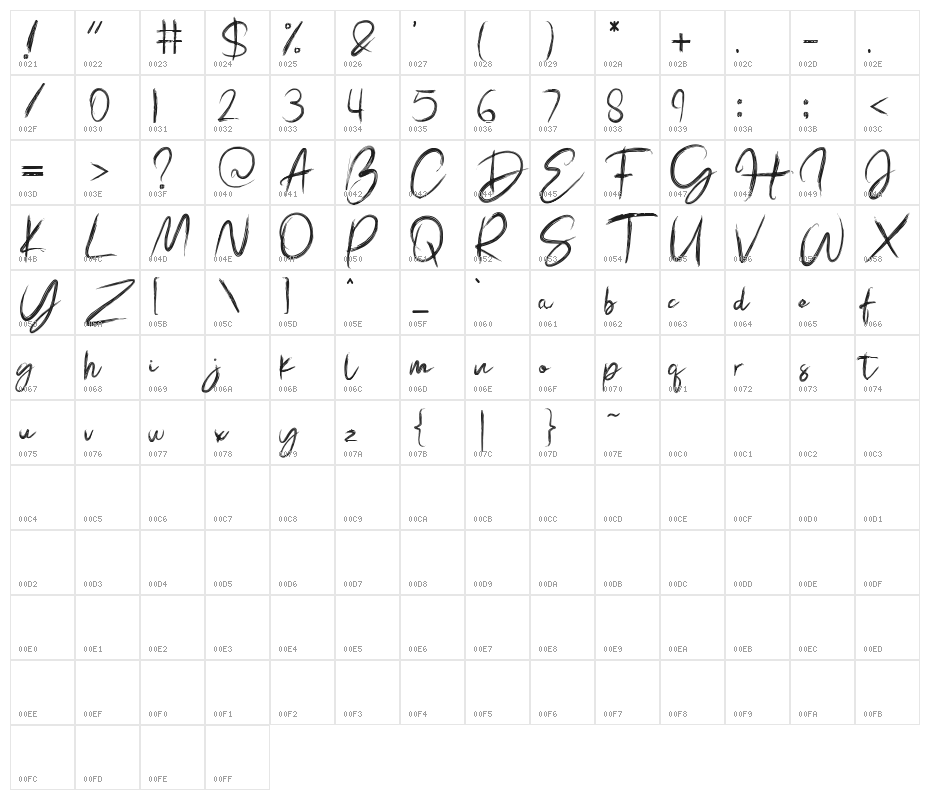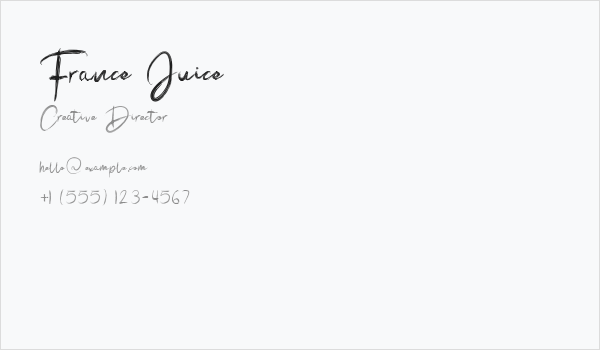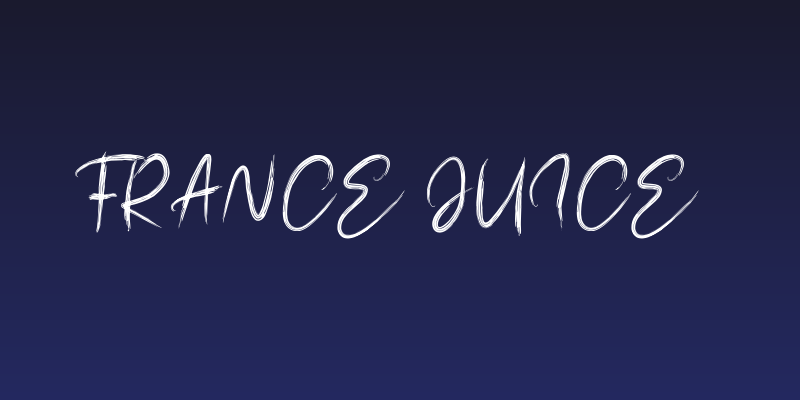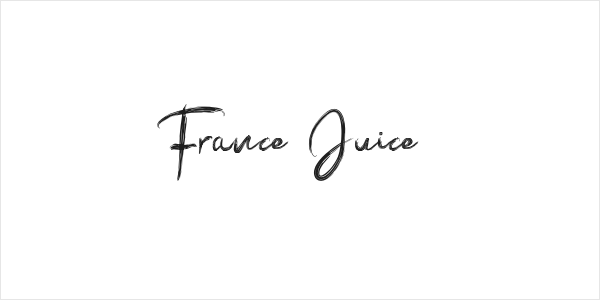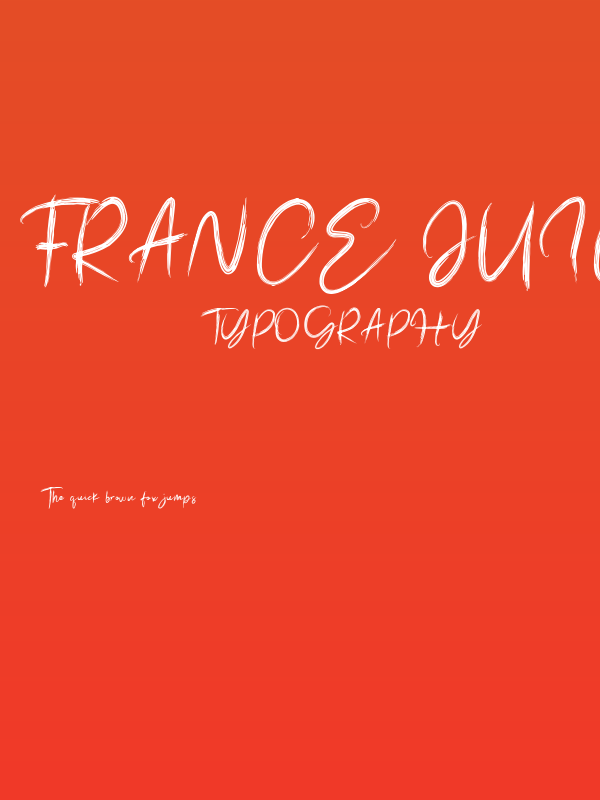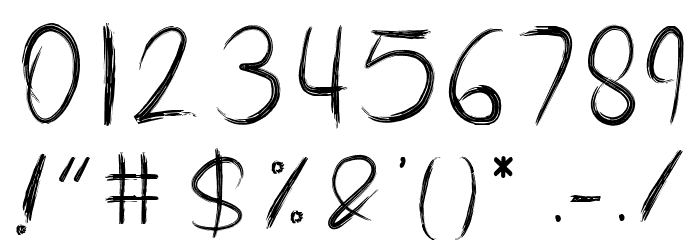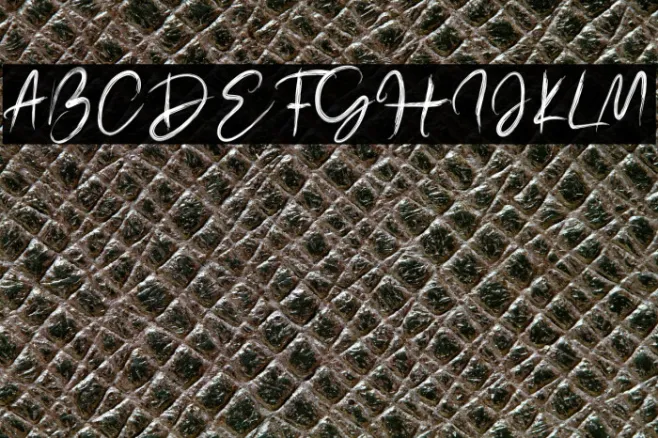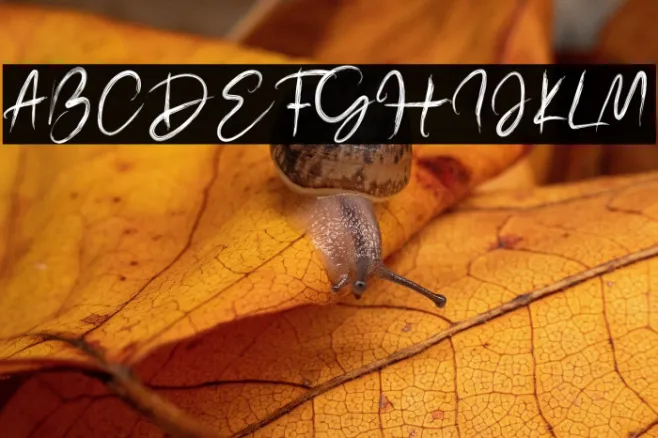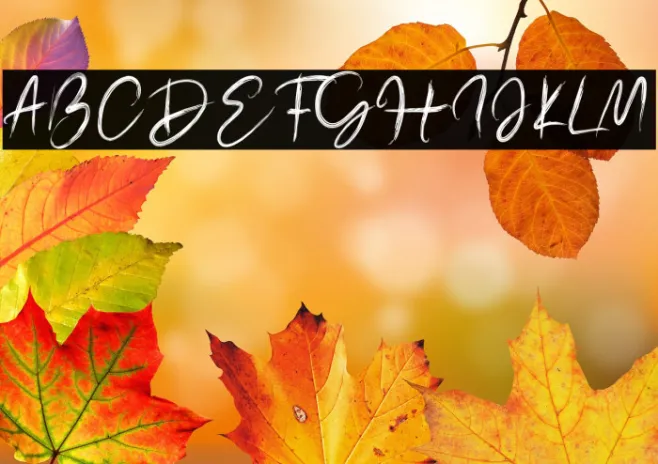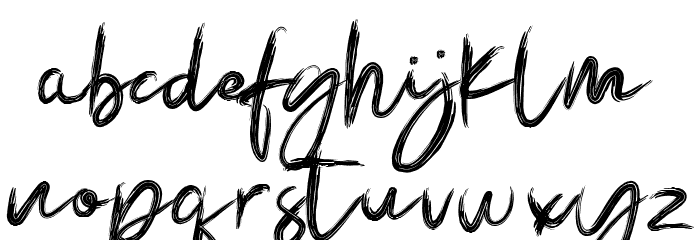
France Juice Font
This font features a dynamic and energetic brush script style, characterized by its bold and expressive strokes. Each letter appears as if it has been painted with a brush, giving it a raw and artistic feel. The uppercase and lowercase letters maintain a consistent flow, with a slight slant that adds to the font's lively nature. The numerals and special characters follow the same brush-like aesthetic, ensuring a cohesive look across all characters. The font's unique style makes it stand out, perfect for projects that require a touch of creativity and flair.
| Proposed Projects | Ideal for branding, posters, invitations, and any creative design projects that require a lively and artistic touch. |